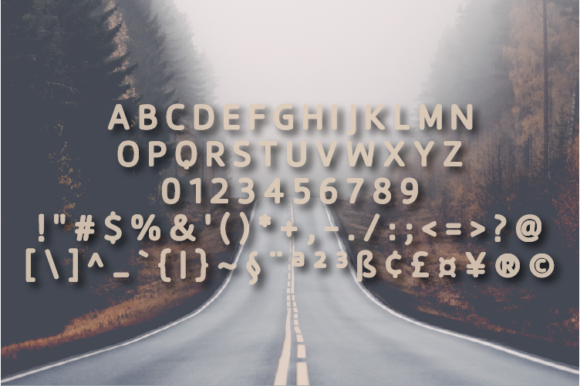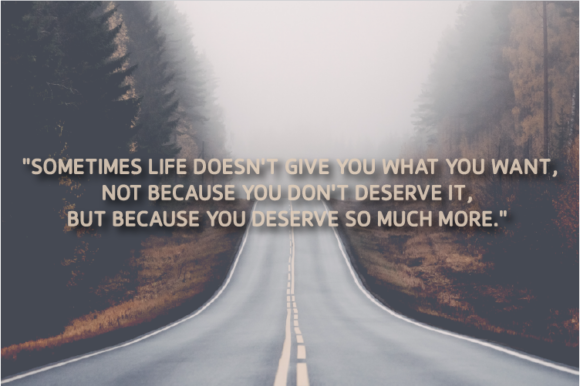
Discover the Perfect Font for Your Next Design Project
Remember that moment when you’re working on a design project, and you just can’t seem to find the perfect font to match your vision? You’ve scrolled through countless options, only to end up feeling uninspired and stuck. Well, we’re here to change that! Today, we’re excited to introduce you to Caleron Font, a bold and chunky charactered sans serif font that’s sure to elevate your designs to the next level.
Whether you’re a seasoned designer or just starting out, Caleron Font is the perfect addition to your toolkit. Its neat and simple style makes it suitable for a wide variety of designs, from logos and branding to digital products and print materials. With Caleron Font, you’ll be able to create stunning visuals that grab attention and convey your message with clarity and ease.
So why is Caleron Font so valuable for designers? For one, its versatility makes it a go-to choice for any design project. Plus, its clean and modern aesthetic ensures that your designs will always look fresh and on-trend. Whether you’re working on a small-scale project or a large-scale campaign, Caleron Font is the perfect font to help you achieve your creative vision.
Caleron Font Key Features
- Unique Characteristics: Caleron Font features a modern, elegant design with a unique blend of geometric and organic shapes, making it ideal for branding and design projects.
- Font Styles: The font family includes 12 font styles, ranging from Light to Black, providing flexibility for various design applications.
- Language Support: Caleron Font supports multiple languages, including Latin, Cyrillic, and Greek alphabets, making it a versatile font for global designs.
Designer Review: Caleron Font
Overall, I’d say the Caleron font has some nice qualities, but it also has some areas where it falls short. Let’s dive in and explore both sides of the coin. ✨
- The Caleron font has a unique, modern design that’s sure to grab attention. Its bold lines and geometric shapes make it perfect for headings and titles.
- The font is highly legible, even at smaller sizes. This makes it a great choice for body text, especially in digital media where screen size can be a concern.
- The font comes in a range of weights, from light to bold, giving you plenty of options to customize your design.
- The Caleron font can feel a bit sterile or cold in some contexts. If you’re going for a more playful or emotive design, this might not be the best choice.
- The font’s geometric shape can make it difficult to use in certain situations, such as in text with a lot of curved lines or organic shapes.
- The font’s bold weights can feel a bit overwhelming, so be careful not to overuse them.
The Caleron font is a solid choice for modern designs that need a bit of edge. While it has some limitations, its unique design and high legibility make it a great addition to any font library. With a bit of careful use, the Caleron font can help take your designs to the next level. ⚠️
Tips for Getting the Most Out of Caleron Font
For best results, use Caleron Font in conjunction with a clean and minimalist design aesthetic.
– Pair Caleron with a simple background to let the font take center stage.
– Use Caleron in bold or italic styles to add emphasis and visual interest.
– Experiment with different font sizes and colors to create a unique look.